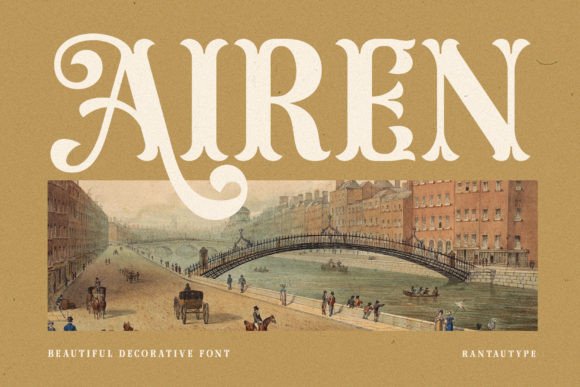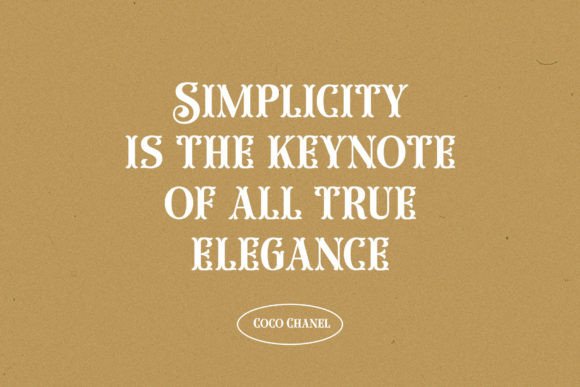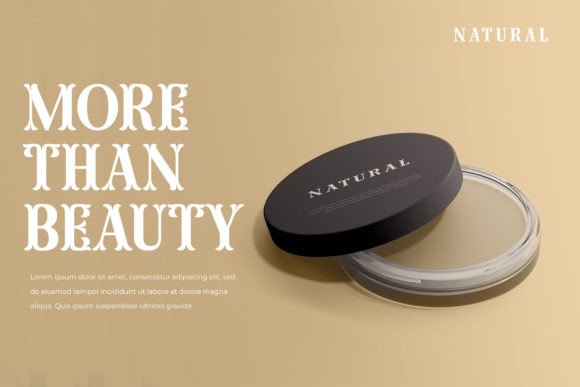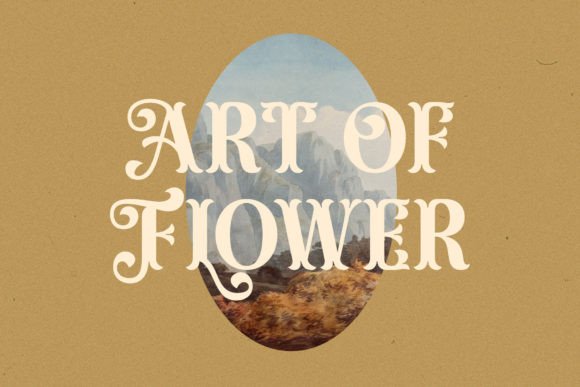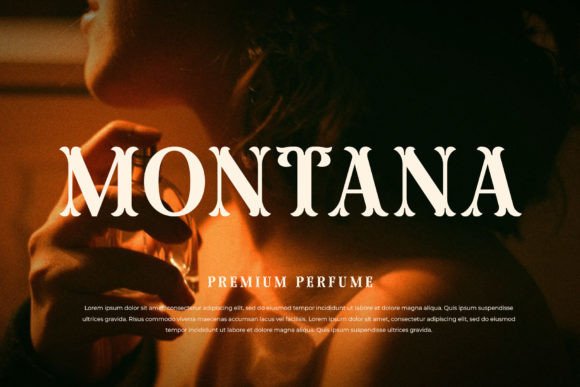
Airen Font
Airen is a stylish vintage-style display font reminiscent of the classic typography of the mid-20th century. With its elegant serifs and graceful curves, Airen exudes sophistication and nostalgia. Perfect for branding, packaging, and editorial designs, it adds a timeless and refined touch to any project.